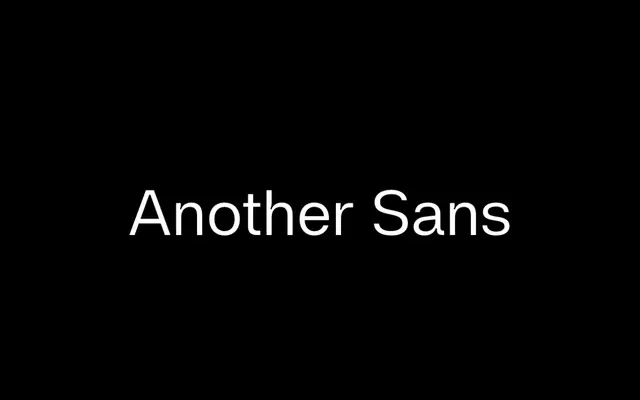
af Another Sans
a.Foundry · 2024
A neo-grotesque with Scandinavian inflection, pairing Swiss neutrality with prominent ink traps across nine weights and matching italics.
Released in 2024 by a.Foundry, it draws on both Swiss and Scandinavian type traditions to produce a clean, legible face suited to screen and print alike. Nine weights from Thin to Black each carry a matching italic, totalling 18 static styles plus a variable font. OpenType features include inferiors, superiors, ligatures, tabular figures and a stylistic set offering a more classical character set.
Described explicitly as a neo-grotesk combining Swiss and Scandinavian heritage, with neutral, clean forms and prominent ink traps characteristic of contemporary neo-grotesque design.